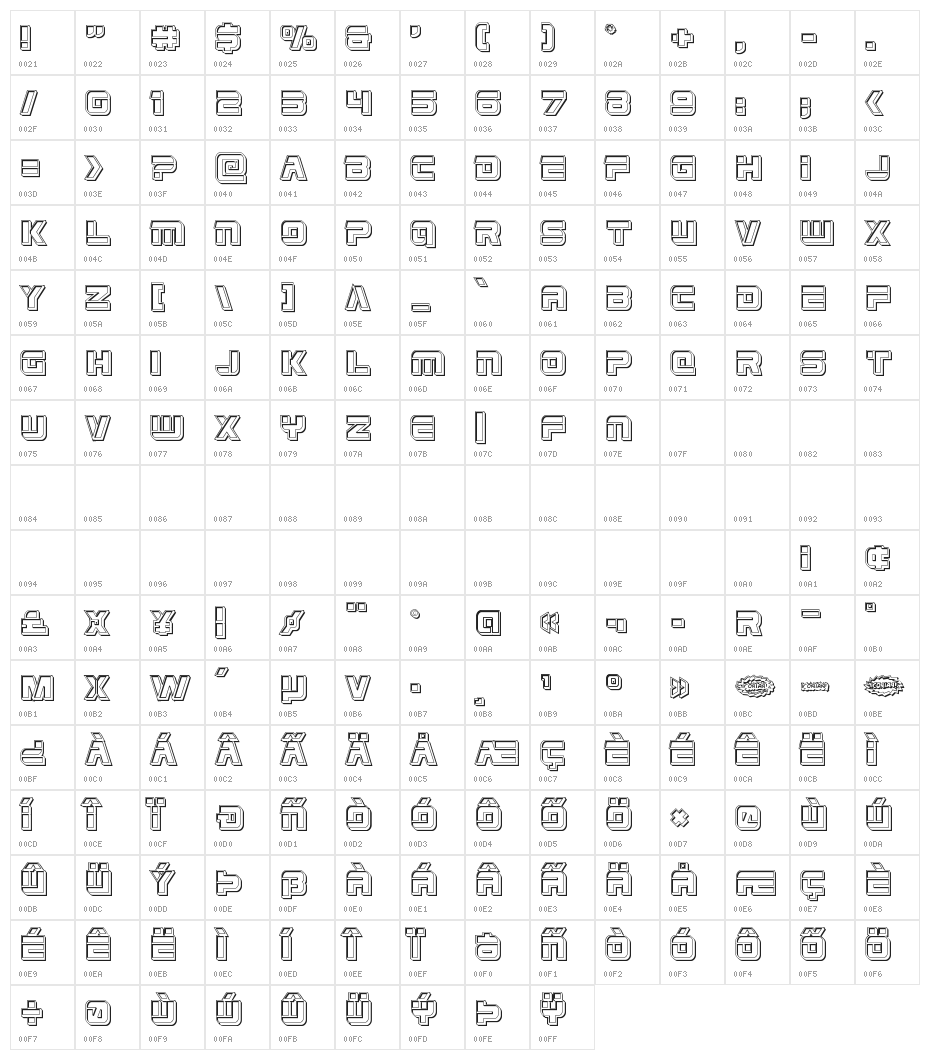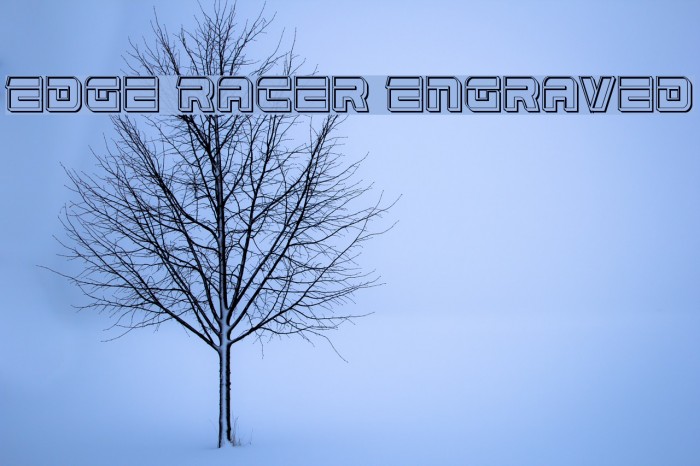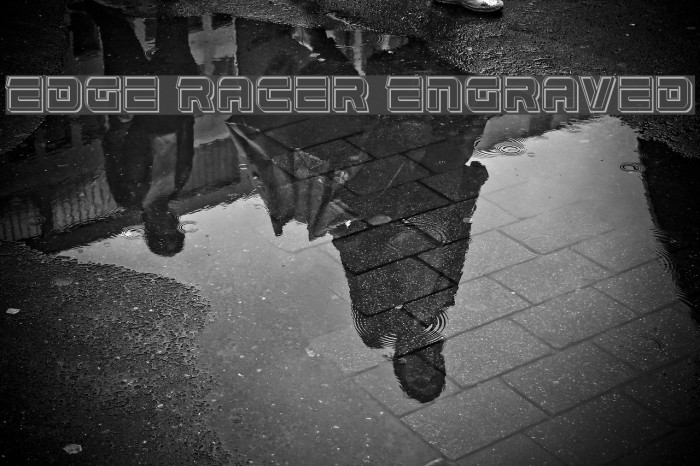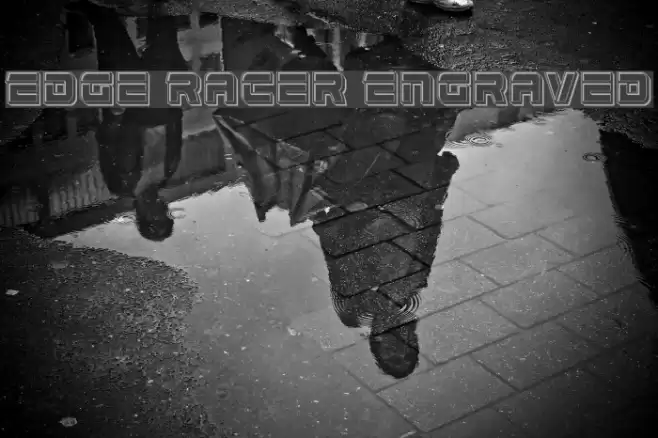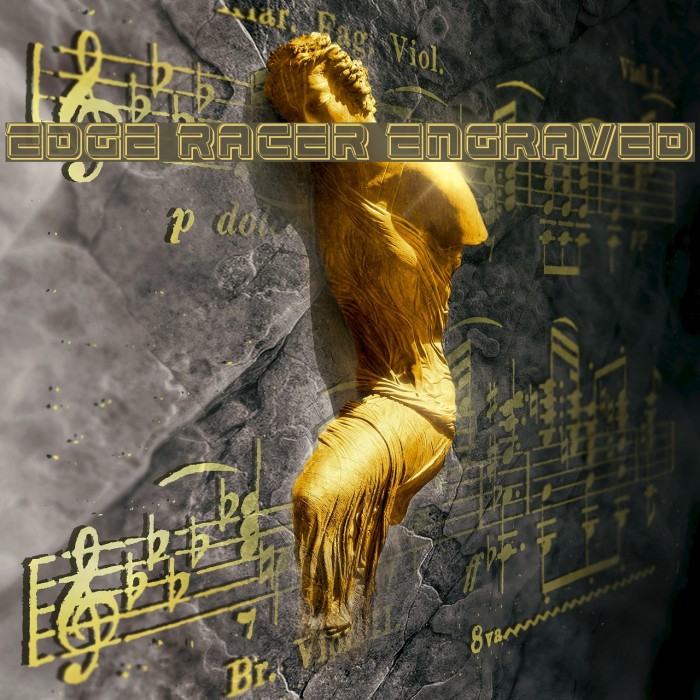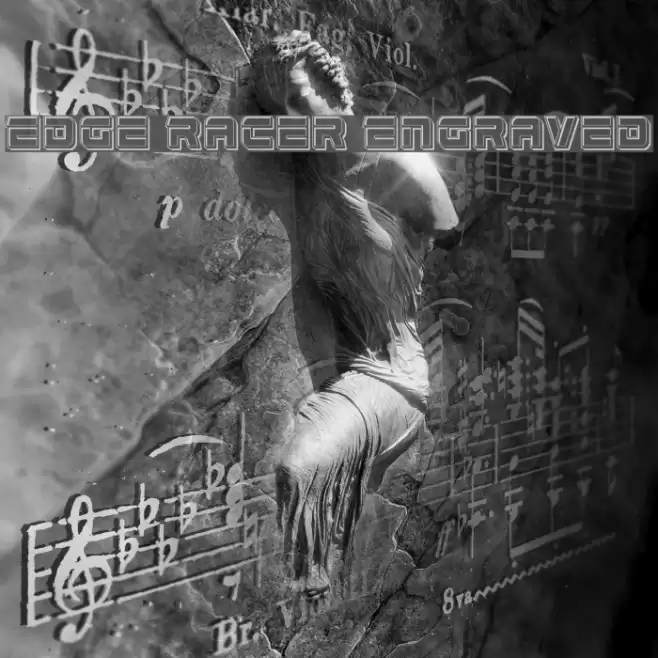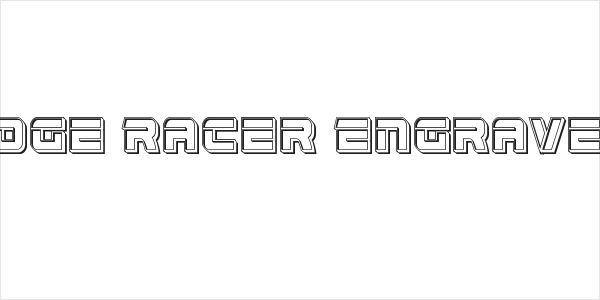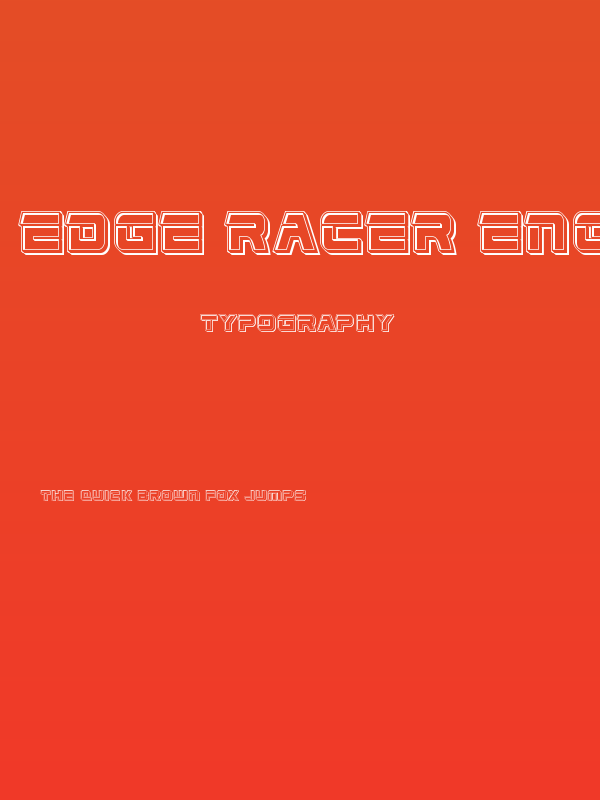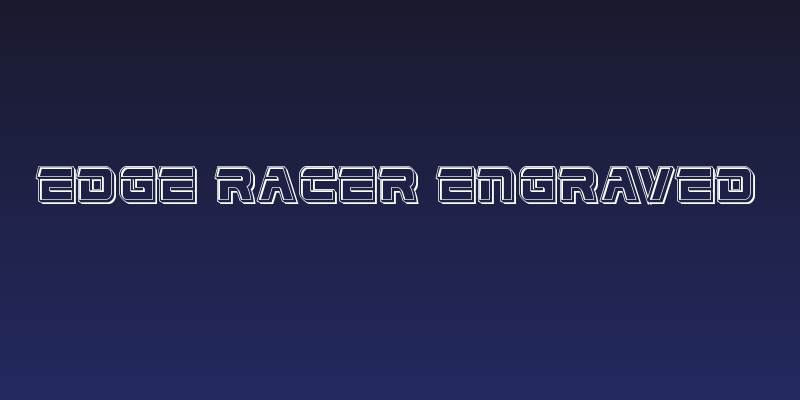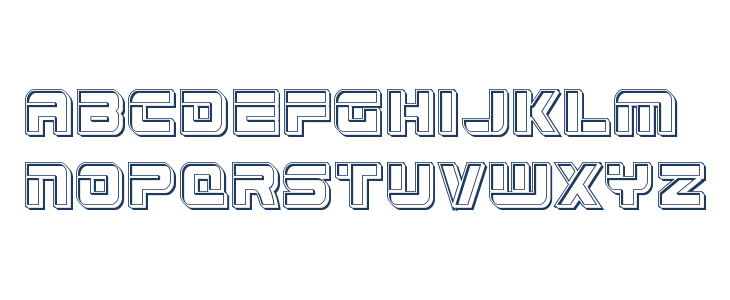
Edge Racer Engraved Font
Edge Racer Engraved Description
This font features a bold, geometric design with a distinct engraved effect, creating a three-dimensional appearance. The characters are outlined with a double line, giving them a futuristic and dynamic look. The uppercase and lowercase letters maintain a consistent style, with sharp angles and clean lines. The numbers and special characters follow the same design principles, ensuring uniformity across all glyphs. This font is ideal for projects that require a modern and edgy aesthetic, such as technology or automotive branding.
| Proposed Projects | Ideal for technology branding, automotive logos, video game titles, and futuristic designs. |